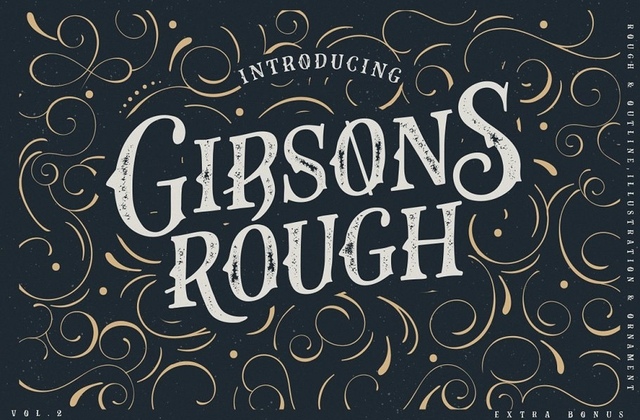
Gibsons Co Vol.2 Font
Gibsons Co Vol.2 Font is perfect for vintage workwear branding, industrial heritage companies, traditional manufacturing firms, rugged outdoor gear packaging, artisanal workshop signage, and heritage craft businesses. This robust typeface excels in brewery branding, mechanical services communications, vintage automotive shops, and any application where honest craftsmanship and blue-collar authenticity create trustworthy brand connections.
What makes Gibsons Co Vol.2 Font so exciting is its remarkable ability to capture the spirit of American industrial heritage and honest workmanship through sturdy, dependable letterforms. The font features bold construction, reliable character shapes, and authentic industrial aesthetics that evoke the golden age of manufacturing and skilled trades. Its trustworthy appearance makes it perfect for brands that build their reputation on quality work and traditional values.
Gibsons Co Vol.2 Font comes in a hardworking family including Light, Regular, Medium, Bold, and Heavy weights. Each style features complete uppercase and lowercase character sets, industrial symbols, workshop numerals, and trade-appropriate punctuation marks. The font family also includes distressed alternates, vintage ligatures, and weathered variations that allow designers to create authentic industrial heritage communications.
This dependable typeface transforms business communications into powerful statements of craftsmanship and industrial pride. Gibsons Co Vol.2 Font Free Download provides traditional businesses and heritage brands with essential typography that honors skilled trades and manufacturing excellence. Whether you're developing brands for construction companies, creating materials for craft workshops, or designing packaging for quality-made products, this font delivers authentic industrial character with professional reliability.
The font's workmanship aesthetic makes it particularly effective for manufacturing companies, skilled trades, craft breweries, and heritage businesses. Its solid legibility ensures that Gibsons Co Vol.2 Font communicates clearly while maintaining its distinctive industrial personality. The font's ability to evoke trust and traditional quality makes it an invaluable tool for any project seeking to communicate genuine craftsmanship and connect with audiences who value honest work, industrial heritage, and the enduring appeal of American manufacturing traditions.